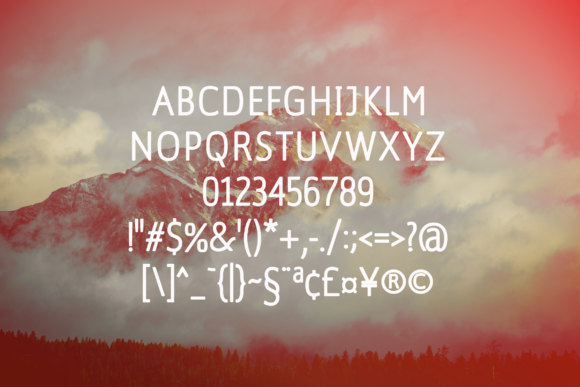
Discover the Elegance of Amsterdam Bold Font: Elevate Your Design Projects
Are you a designer or crafter looking for a font that can add a touch of sophistication and elegance to your projects? Look no further than the Amsterdam Bold Font. Inspired by the iconic city of Amsterdam, this sans serif font is designed to make your designs stand out from the crowd.
What is Amsterdam Bold Font?
Amsterdam Bold is a modern sans serif font that draws inspiration from the charming city of Amsterdam. With its clean lines, elegant curves, and precise craftsmanship, this font is perfect for designers who want to add a touch of refinement to their projects. Whether you’re working on a branding project, a website design, or a craft project, Amsterdam Bold Font is sure to impress.
Key Features of Amsterdam Bold Font
- Elegant Sans Serif Design: Amsterdam Bold Font features a sleek and modern sans serif design that is perfect for creating sophisticated and elegant designs.
- Inspired by Amsterdam: The font’s design is inspired by the iconic city of Amsterdam, giving it a unique and distinctive character.
- Highly Versatile: Amsterdam Bold Font can be used for a wide range of design projects, from branding and advertising to website design and crafting.
- Easy to Read: The font’s clean lines and precise craftsmanship make it easy to read, even at small sizes.
How to Use Amsterdam Bold Font in Your Design Projects
Amsterdam Bold Font is a versatile font that can be used in a variety of design projects. Here are a few ideas to get you started:
- Branding and Logo Design: Use Amsterdam Bold Font to create a sophisticated and elegant logo for your brand.
- Website Design: Add a touch of refinement to your website design with Amsterdam Bold Font, perfect for headings and titles.
- Advertising and Marketing: Use Amsterdam Bold Font to create eye-catching ads and marketing materials that are sure to grab attention.
- Crafting and DIY Projects: Add a touch of elegance to your crafting and DIY projects, such as papercrafts, card making, and scrapbooking.
Tips for Getting the Most Out of Amsterdam Bold Font
Here are a few tips for getting the most out of Amsterdam Bold Font:
- Use it as a Headline Font: Amsterdam Bold Font is perfect for use as a headline font, adding a touch of elegance and sophistication to your designs.
- Pair it with Other Fonts: Experiment with pairing Amsterdam Bold Font with other fonts to create a unique and interesting design.
- Adjust the Size and Color: Play around with different sizes and colors to find the perfect combination for your design.
In conclusion, Amsterdam Bold Font is a versatile and elegant sans serif font that is perfect for designers and crafters looking to add a touch of sophistication to their projects. With its clean lines, elegant curves, and precise craftsmanship, this font is sure to make your designs stand out from the crowd. So why wait? Download Amsterdam Bold Font today and start elevating your design projects to new heights!